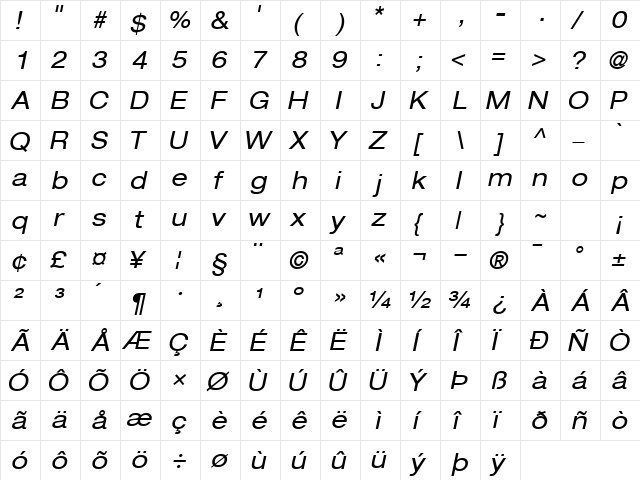
ContextRepriseExpandedSSK Italic
Design Context for ContextRepriseExpandedSSK Typeface
ContextRepriseExpandedSSK is a composed and adaptable typeface that performs quietly and consistently across a wide range of design contexts. Its italic angle brings a sense of urgency and motion to the letterforms.
Pro Tip: Try ContextRepriseExpandedSSK for annotation and caption copy alongside an upright companion — the contrast in angle creates a dynamic but ordered typographic system.